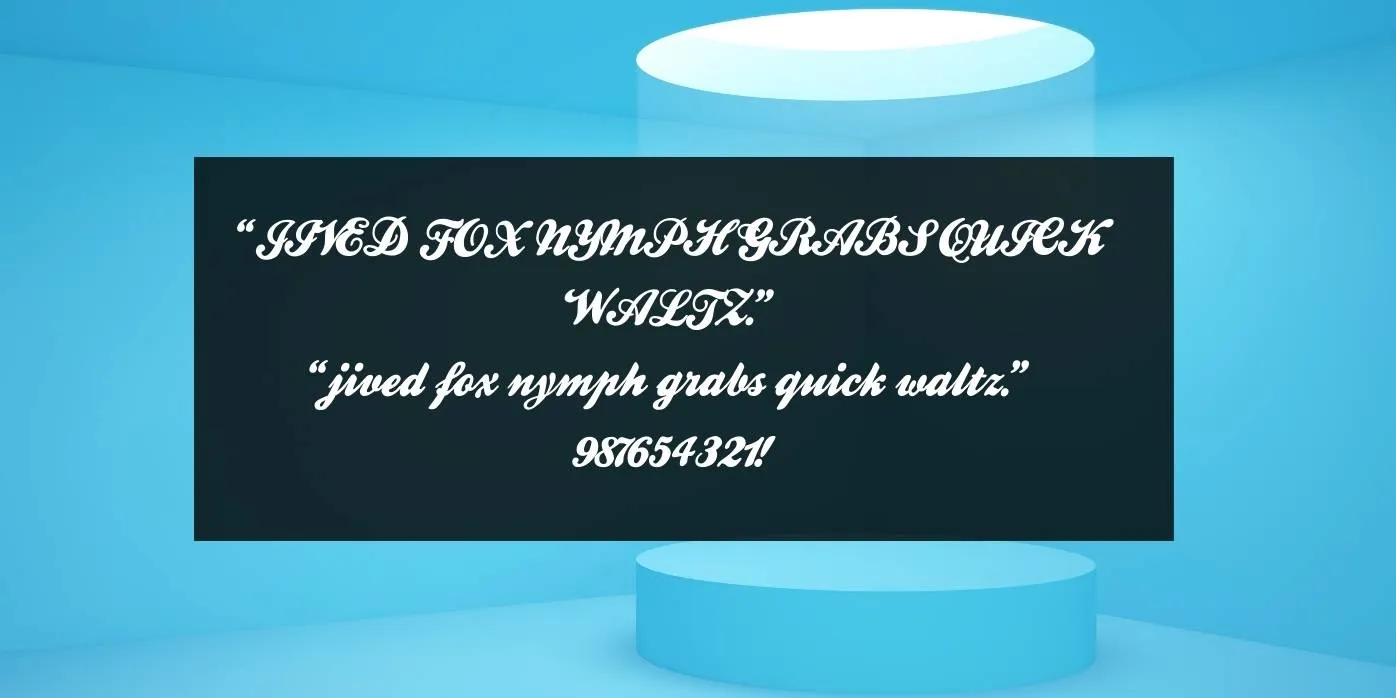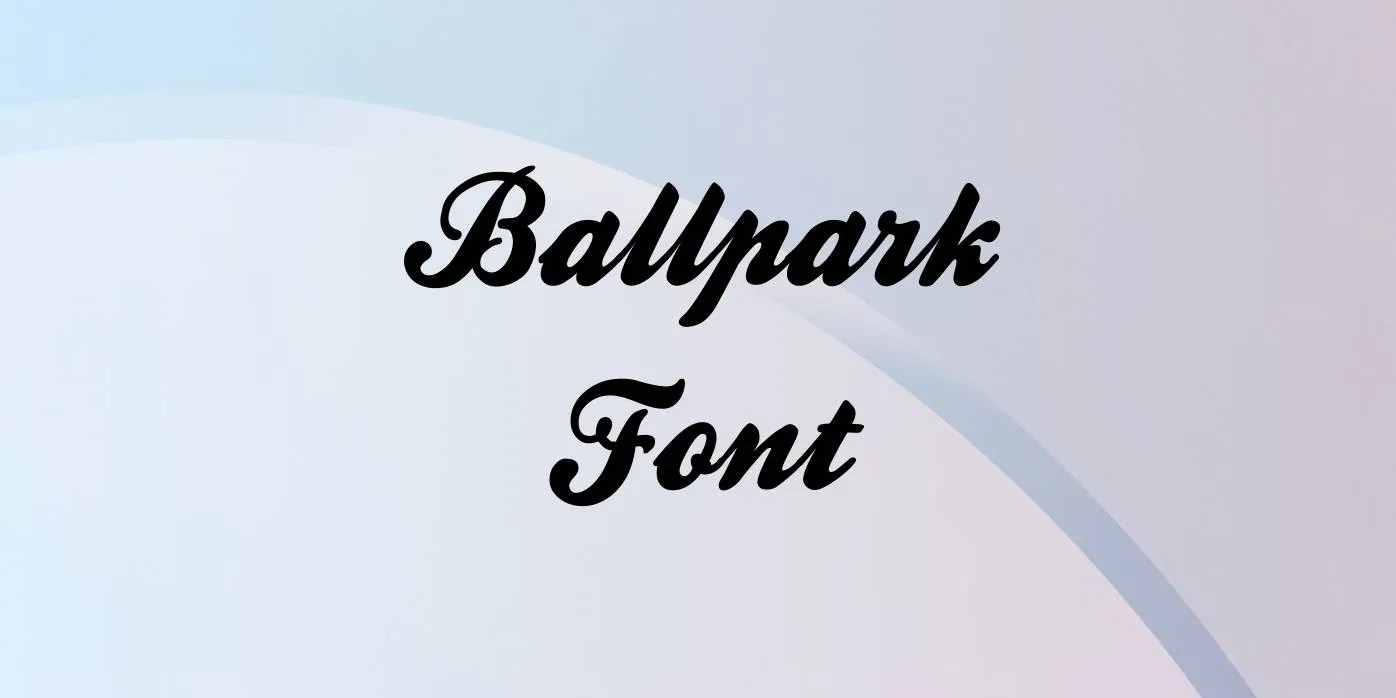
Ballpark Font
In this post, we are going to present a new classy typeface known as Ballpark Font. This gorgeous typeface was developed by Mickey Rossi. This typeface belongs to the script family. This typeface has a very elegant and stylish look.
This typeface is best for Adobe and Canva. Ballpark Typeface comes in two different styles: regular and script. The regular style is great for headlines and body text, while the script style is perfect for adding a touch of elegance to your designs. Ballpark Typeface also includes a set of ornamental symbols that you can use to add an extra touch of class to your designs.